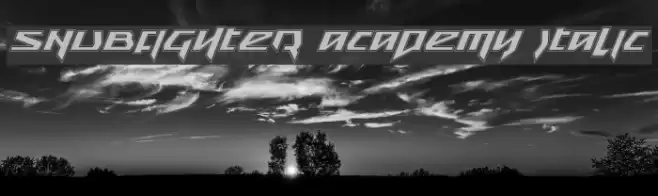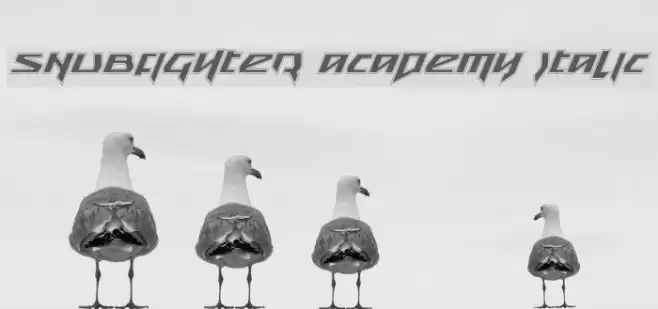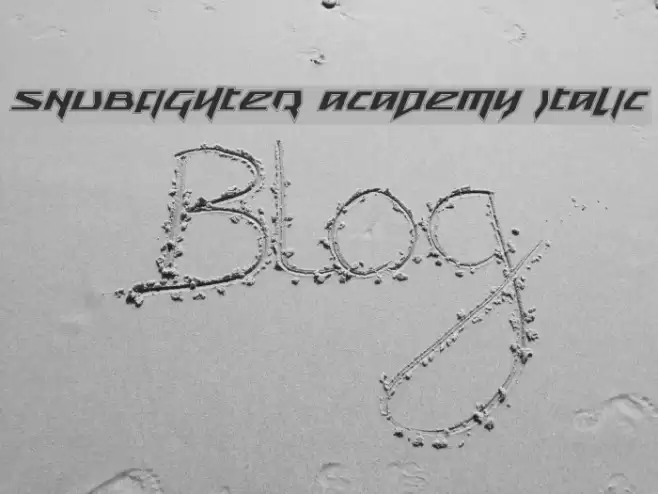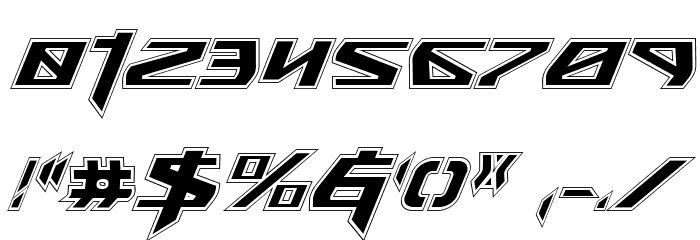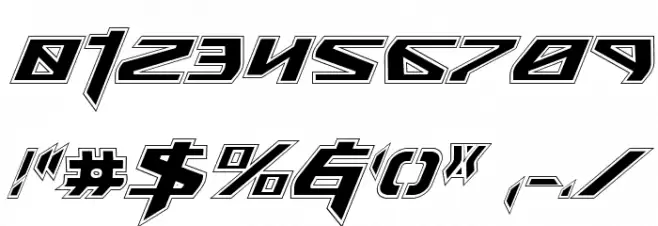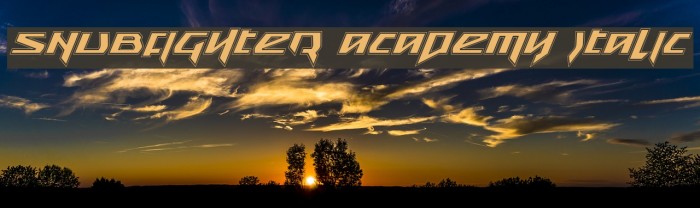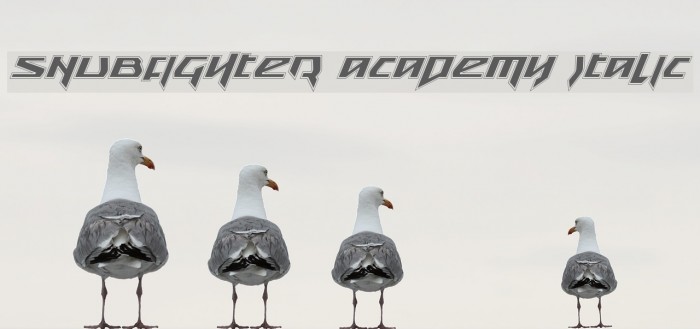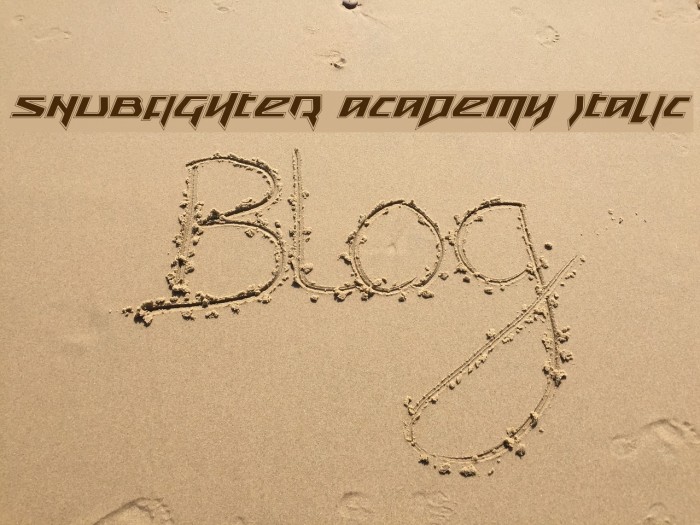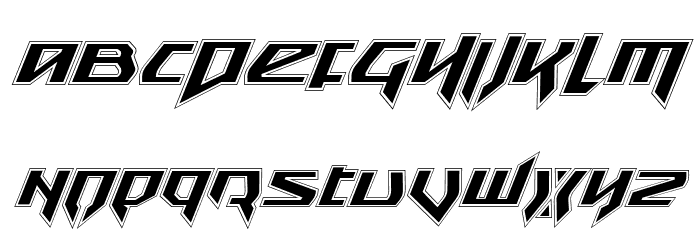
Snubfighter Academy Italic Font
Snubfighter Academy Italic Description
This font features a bold, angular design with a futuristic and aggressive aesthetic. The characters are sharply defined with a distinct italic slant, giving a sense of motion and speed. The uppercase and lowercase letters maintain a consistent style, with exaggerated serifs and sharp edges that create a dynamic visual impact. The numbers and special characters follow the same design principles, ensuring uniformity across all glyphs. The font's unique style makes it ideal for projects that require a modern, edgy look.
A bold, angular, and italic font with a futuristic and aggressive style from Sci-fi fonts.
- Proposed Projects: Ideal for video game titles, sci-fi movie posters, sports team logos, and edgy branding projects.
- Overall Style: Futuristic, Edgy